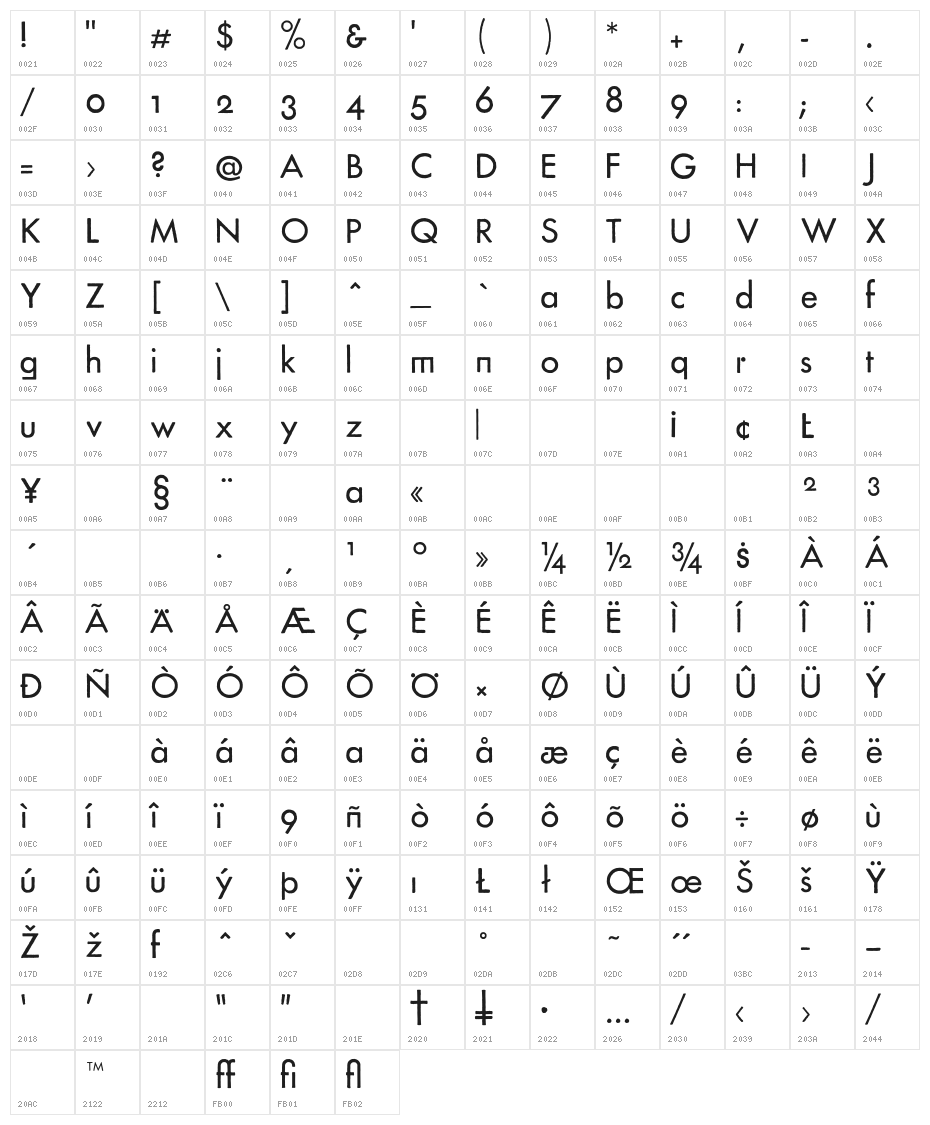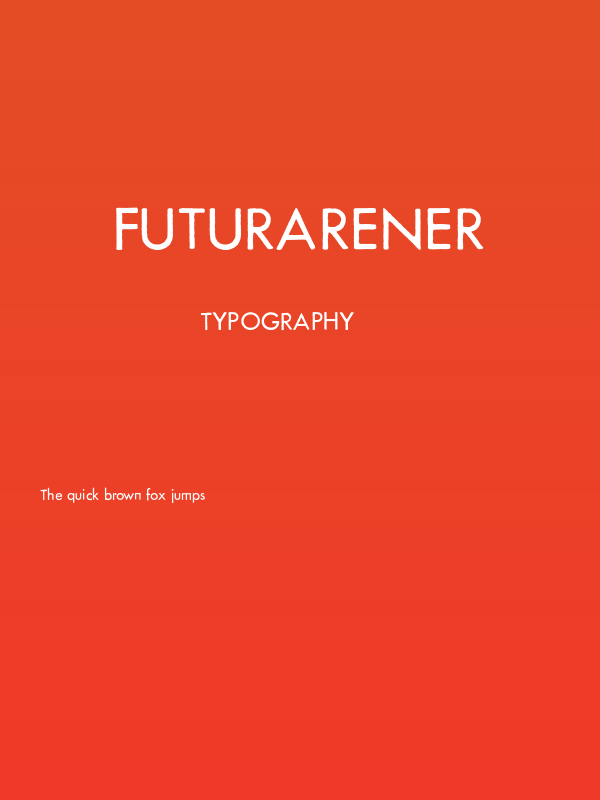
FuturaRener Font
FuturaRener Description
This font features a clean and geometric design, characterized by its uniform stroke widths and lack of serifs. The letters are constructed with a modernist approach, emphasizing simplicity and readability. The uppercase letters are bold and assertive, while the lowercase letters maintain a consistent height, contributing to a balanced appearance. The numerals are clear and straightforward, ensuring legibility in various contexts. Special characters are well-integrated, maintaining the overall aesthetic of the font. This font is versatile, suitable for both digital and print media, and can be used effectively in a variety of design projects.